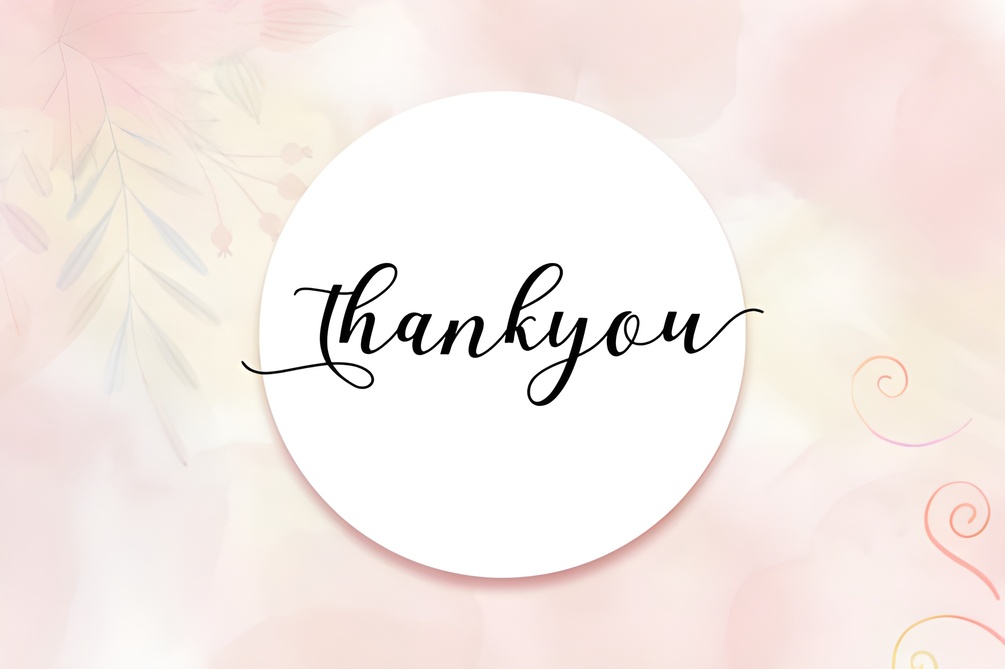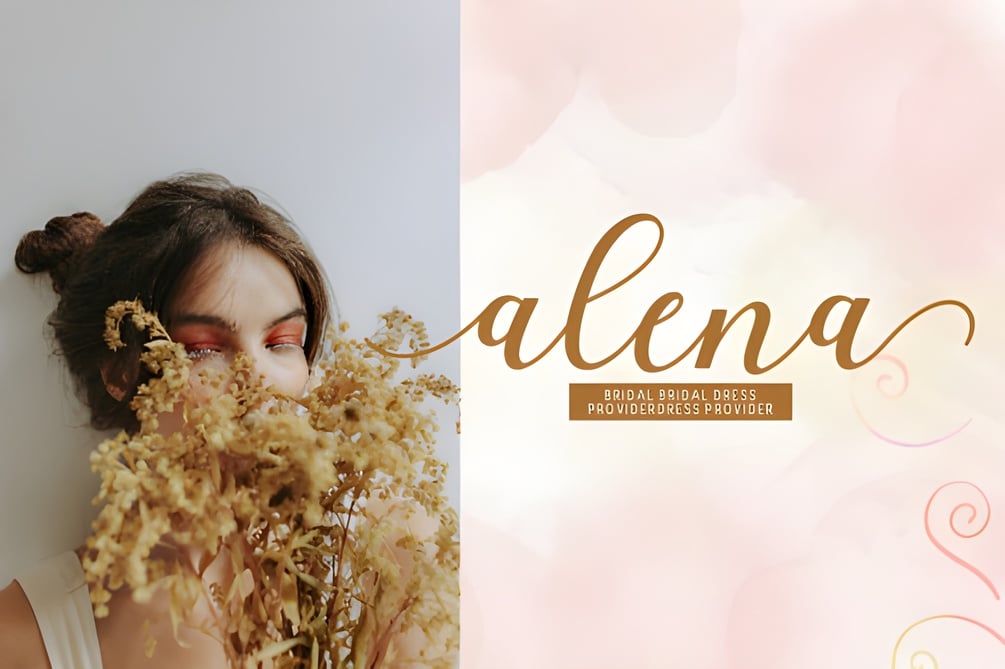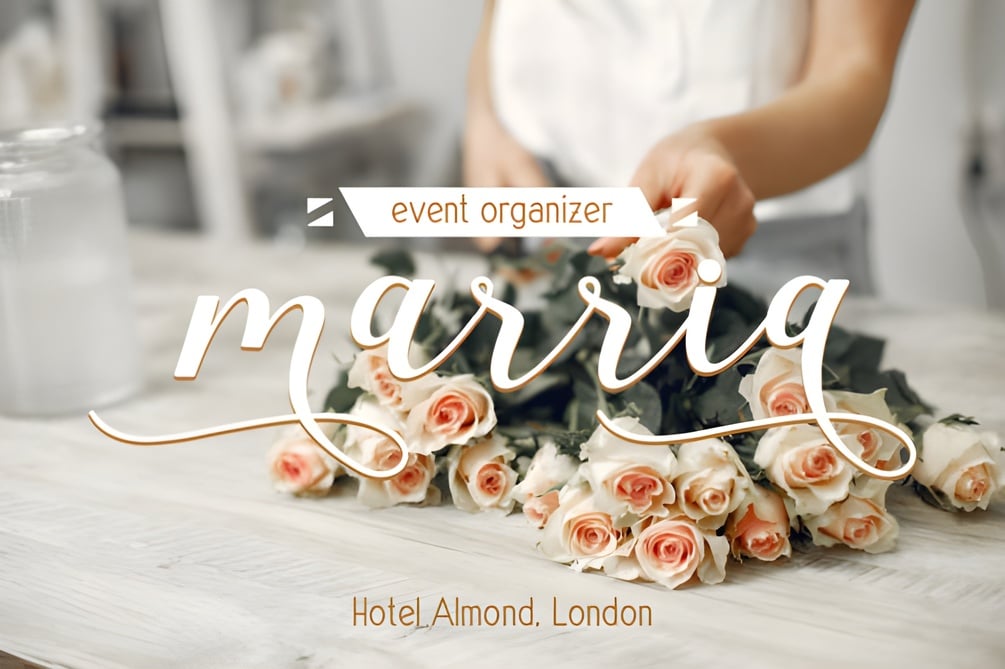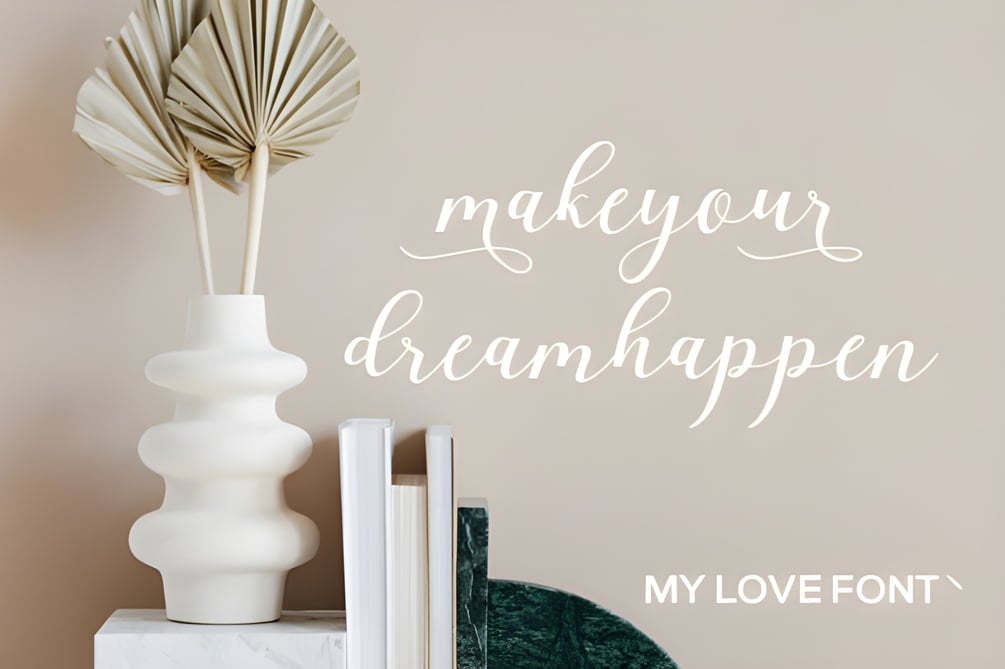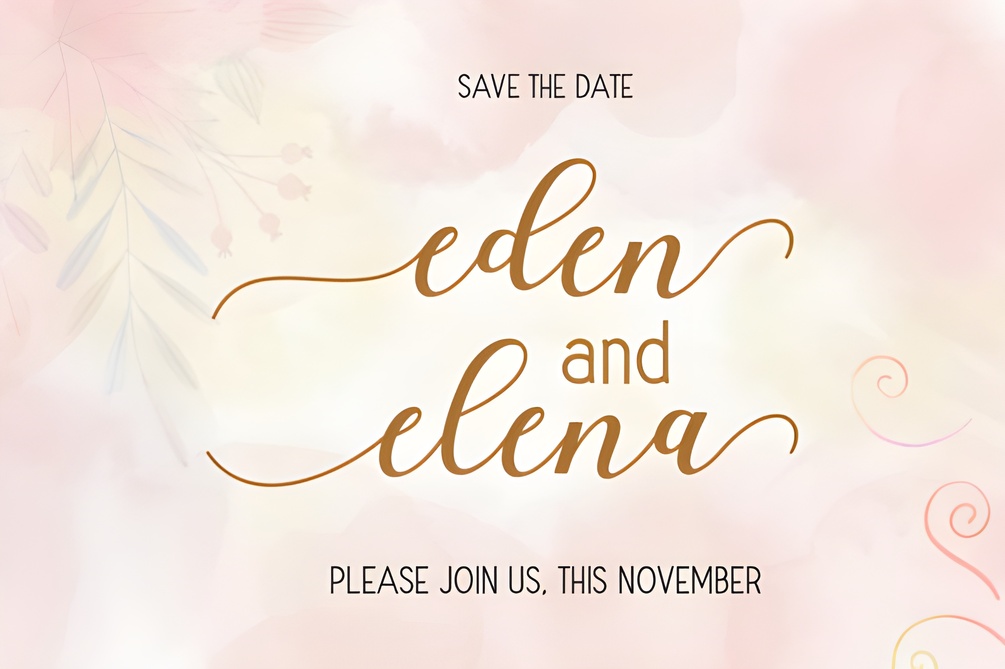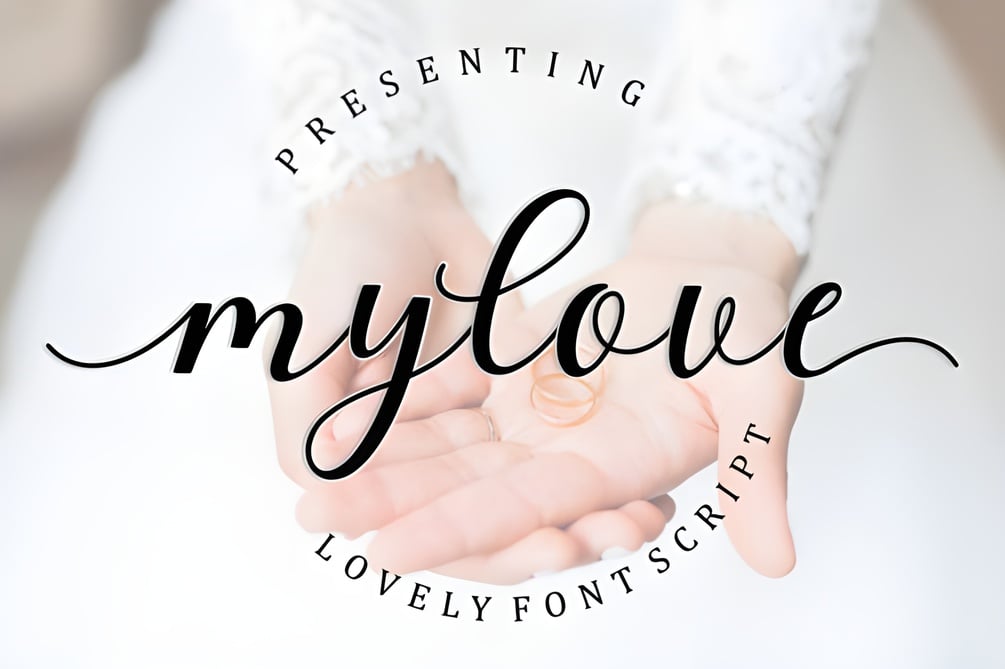
Enchanté Script Font: Captivating Elegance (My Love)
"My Love" is more than just a font—it's an embodiment of flowing elegance and delicate charm in every stroke.
Perfectly crafted for projects craving romantic typography, this handwritten gem elevates your designs with its graceful curves and swooping swashes.
PUA encoded for seamless access to a plethora of glyphs and flourishes, "My Love" empowers you to create effortlessly stunning creations that captivate hearts and minds alike.
Embrace the allure of romance and sophistication—add "My Love" to your toolkit and watch your designs blossom into works of art.
"Enchanté Script Font: Captivating Elegance" invites you into a world where every curve and flourish tells a story of timeless sophistication. Embodying the essence of handwritten charm and grace, this font is your passport to creating designs that resonate with romance and allure. PUA encoded for effortless access to a myriad of glyphs and swashes, "Enchanté" ensures every project exudes a captivating, bespoke elegance. Elevate your designs and enchant your audience—let "Enchanté Script Font" weave its magic into your creative journey.